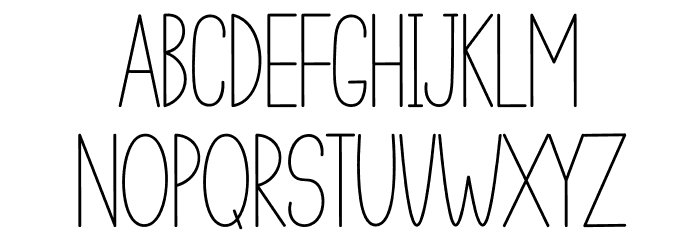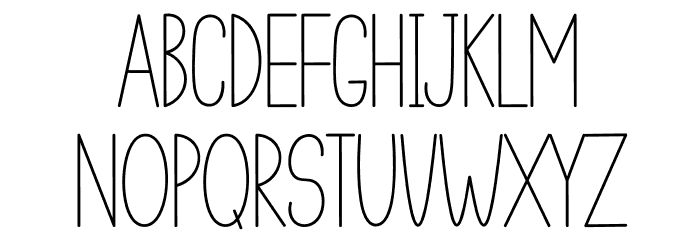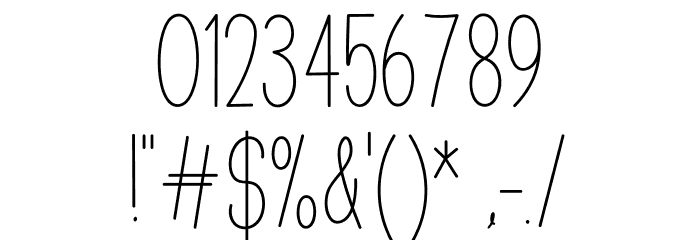
Minimalist Creative Font
This font embodies a minimalist and creative aesthetic with its tall, narrow letterforms and clean lines. The characters are uniformly thin, giving the font a sleek and modern appearance. The uppercase and lowercase letters maintain a consistent style, with elongated vertical strokes and minimal embellishments. The numerals and special characters follow the same design principles, ensuring a cohesive look across all text. This font's simplicity and elegance make it versatile for various design applications.
A minimalist, tall, and narrow font with clean lines and a modern aesthetic.
- Font: Minimalist Creative
- Proposed Projects: Ideal for modern branding, minimalist posters, fashion magazines, and creative projects that require a sleek and contemporary look.
- Category: Sans-Serif
- Weight: Light
- Width: Condensed